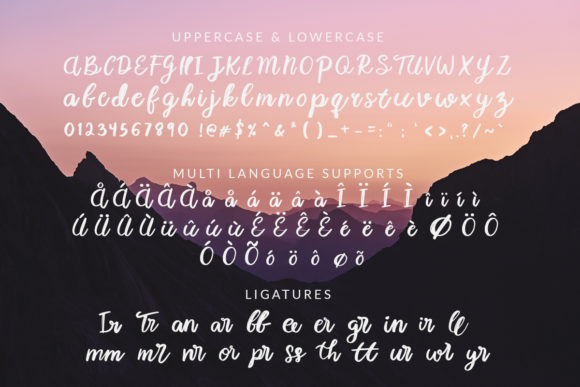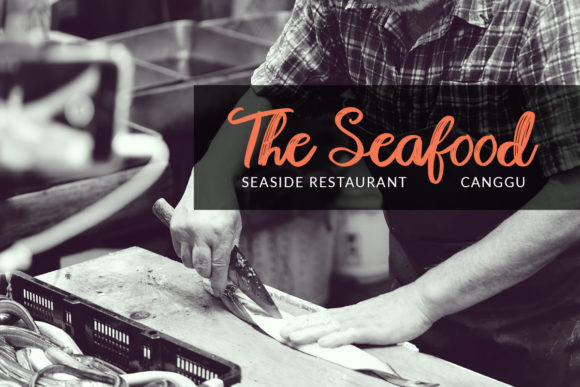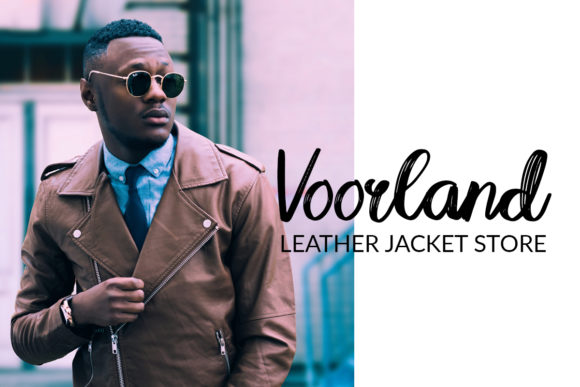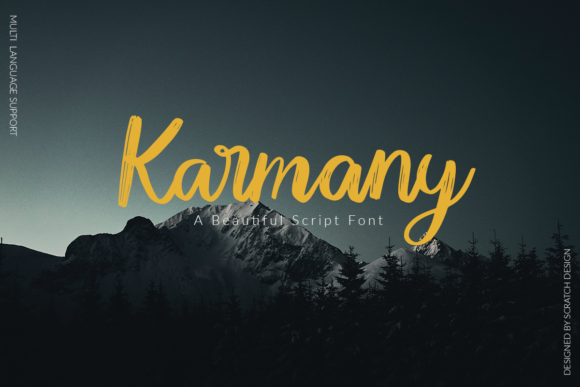
Introduction to Karmany Font
Karmany is a sweet and cool handwritten font with a unique style.
It will add a bold flavor to any design idea .
Key Features of Karmany Font
Why Choose Karmany Font?
Karmany Font offers exceptional quality and versatility, making it a valuable addition to your design toolkit. Whether you’re creating for personal projects or commercial use, Karmany Font delivers professional results.